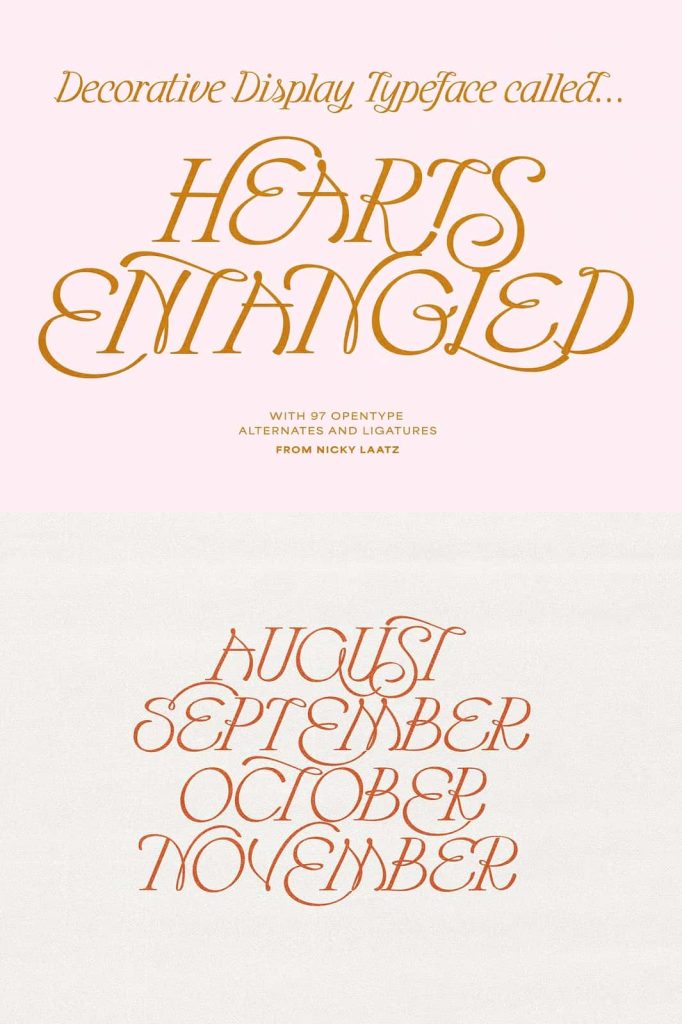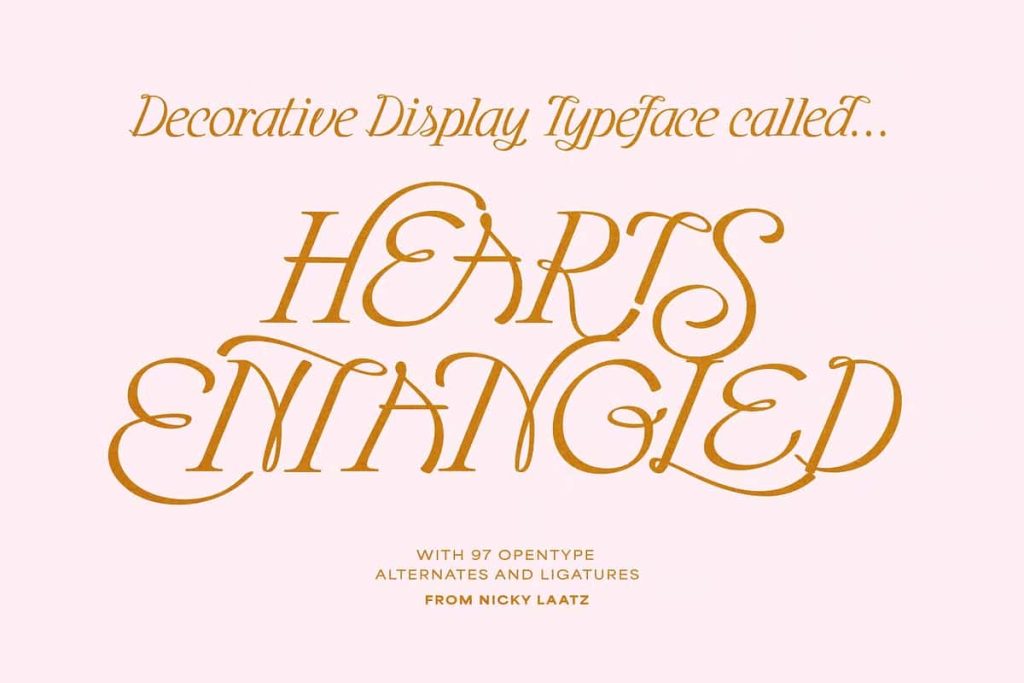
Hearts Entangled – A Fusion of Romance and Timeless Elegance
Hearts Entangled captures the essence of romance through an exquisite balance of classic calligraphy and refined serif design. This typeface embodies sophistication and emotional expression, weaving tradition and artistry into every curve. Each letter feels like a brushstroke of passion — graceful, intricate, and full of depth. With its flowing strokes and decorative detailing, Hearts Entangled transforms words into visual poetry that speaks directly to the heart.
Where Calligraphy Meets Classic Serif Design
Hearts Entangled brings together two powerful traditions in typography — the fluid motion of romantic calligraphy and the structured refinement of traditional serif design. The result is a font that feels both expressive and timeless. Its calligraphic flourishes capture emotion and movement, while the sturdy serifs anchor each form with stability and strength. This seamless union creates a visual rhythm that celebrates the beauty of written expression while maintaining exceptional readability and balance.
Designed for Expression, Crafted for Impact
Every curve and contour in Hearts Entangled tells a story. The sweeping ascenders, elegant ligatures, and decorative terminals evoke the artistry of hand-drawn lettering. This makes the font an ideal choice for wedding invitations, luxury branding, book covers, packaging, and event signage. Wherever it appears, Hearts Entangled communicates emotion, refinement, and creativity. Designers who seek to convey warmth and sophistication will find this typeface an indispensable tool for meaningful visual storytelling.
Romance in Every Detail
Like its name suggests, Hearts Entangled evokes the intertwining of affection, emotion, and elegance. The font captures the charm of traditional romance with a modern touch that feels timeless rather than dated. Its fine contrast between thick and thin strokes adds drama and delicacy in equal measure. Every letter seems to dance, creating a sense of rhythm and flow that makes any composition come alive with character and sentiment.
The Perfect Typeface for Elegant and Emotional Design
Whether you’re designing for print or digital platforms, Hearts Entangled adapts beautifully. It adds a distinctive charm to logos, magazine titles, greeting cards, fashion editorials, or boutique branding. The expressive form makes it perfect for moments that deserve attention and grace. Its decorative flair invites viewers to linger, making every word feel like a crafted statement of beauty. This typeface doesn’t just decorate your message — it amplifies it with emotional power.
Why Choose Hearts Entangled
- Romantic artistry: A perfect blend of timeless calligraphy and classic serif structure.
- Elegant versatility: Works beautifully in both luxury and expressive designs.
- Decorative detail: Intricate forms that elevate invitations, branding, and creative layouts.
- Emotional impact: Conveys sophistication, warmth, and love through typographic form.
Transform Words into Works of Art
Hearts Entangled isn’t just a font — it’s a visual experience that captures the spirit of romance and craftsmanship. It celebrates the artistry of handwriting while embracing the discipline of traditional serif design. The result is a timeless fusion that elevates any creative project. From editorial design to personal stationery, Hearts Entangled delivers elegance that endures. Its expressive charm draws the eye and engages the heart, leaving a lasting impression of beauty and refinement.
Let your designs tell a story of elegance, love, and creativity with Hearts Entangled — the font that intertwines emotion and artistry in every graceful curve.